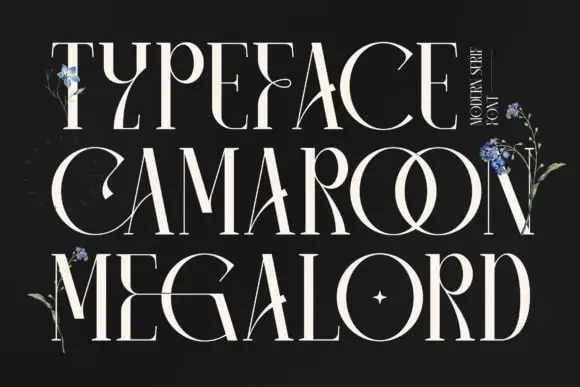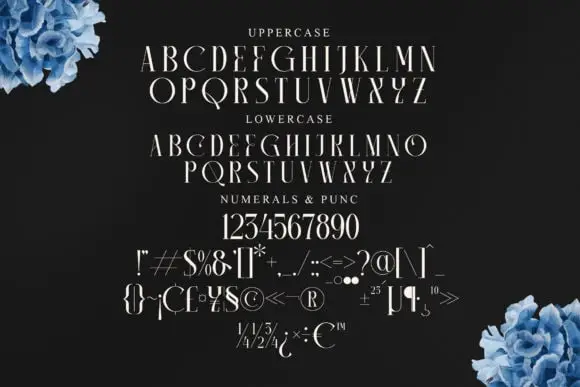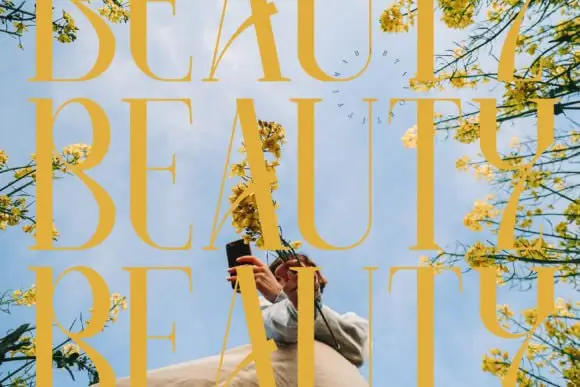
The Camaroon Megalord Font is a striking typeface that combines modern aesthetics with a touch of elegance. This font is perfect for a variety of applications, including branding, logos, web design, and print materials.
- Stylish and contemporary design
- Supports multilingual characters
- Easy to read at various sizes
- Weights: Regular, Bold
- Ideal for creating eye-catching headlines and titles
- Use in both digital and print projects for a cohesive look
- Combine with complementary fonts for added depth in designs